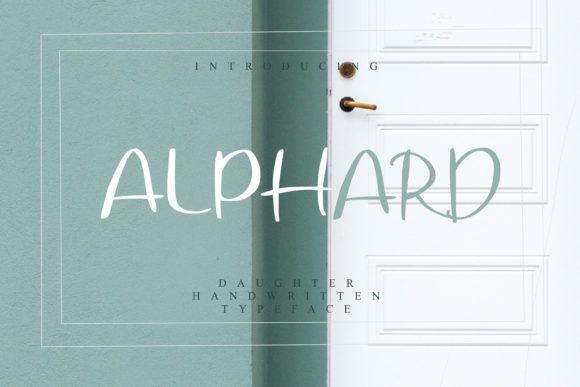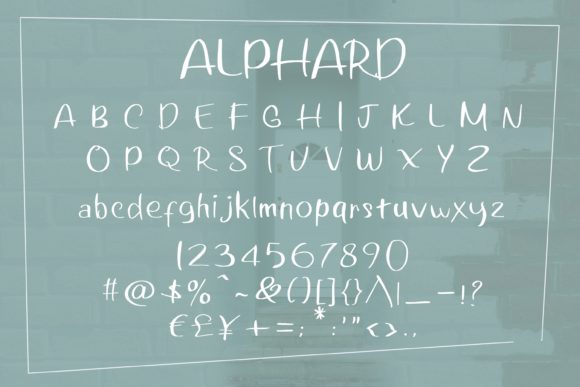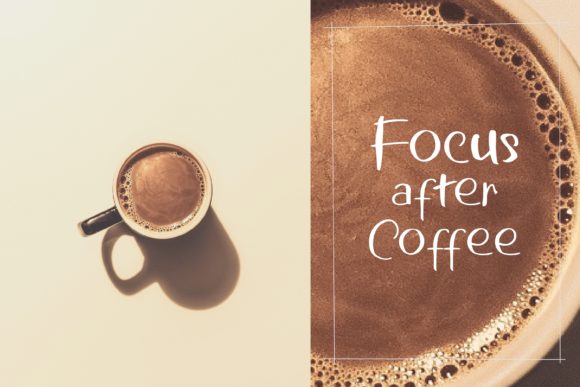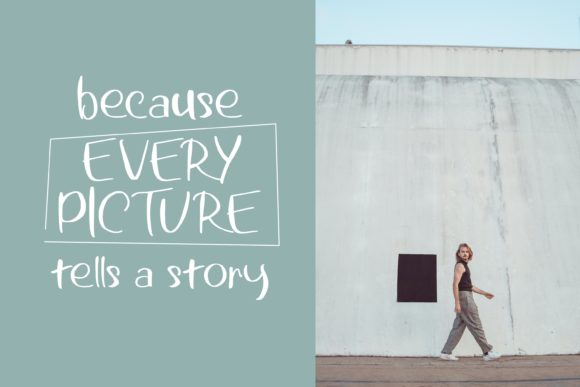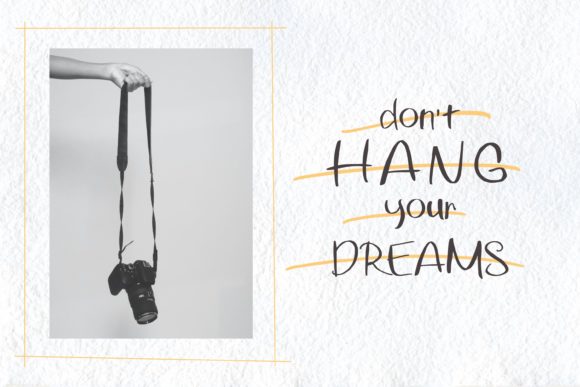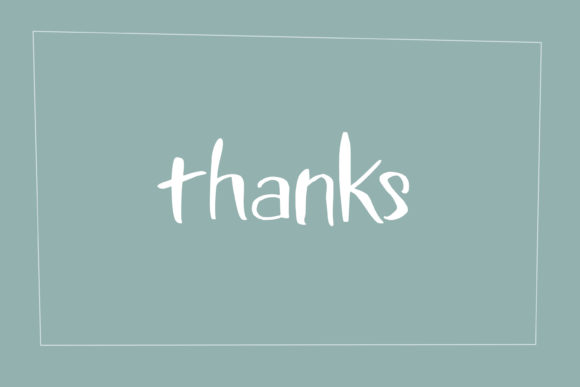
Alphard Font
About Alphard Font
Alphard is a cool handwritten font that tells a fun story! Its quirky letters and additional glyphs will add a unique element to your designs, logos, social media posts, stationery, invitations, T-shirt designs.